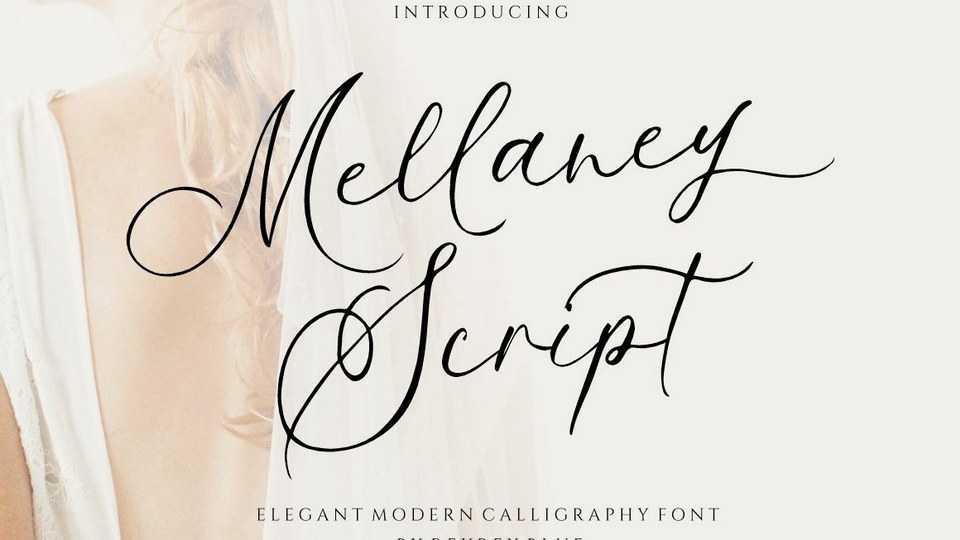
Download Mellaney Script font, an elegant, modern, and fresh handmade calligraphy typeface. Mellaney Script is perfect for that elegant touch needed for logos, wedding invitations, modern websites, greeting cards, and more.
Designer: Reyrey Blue